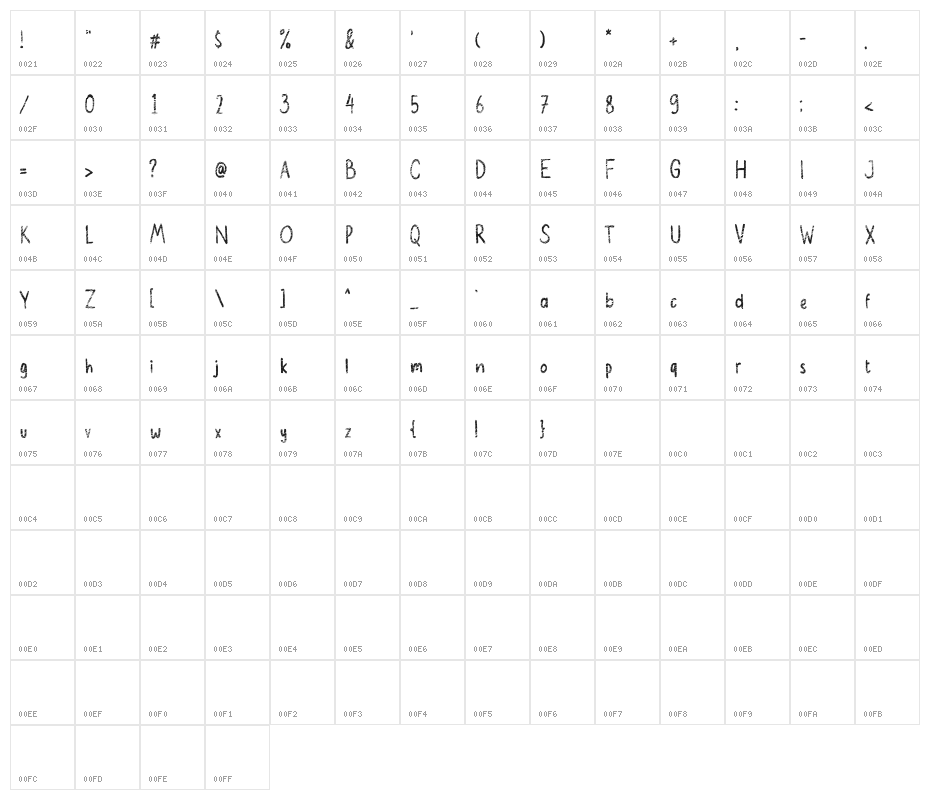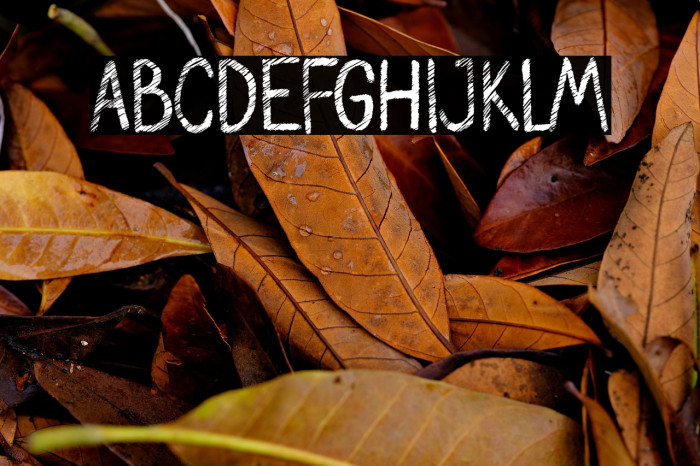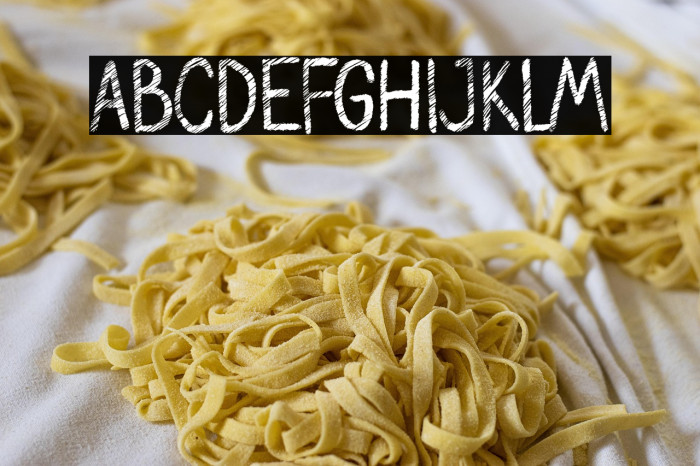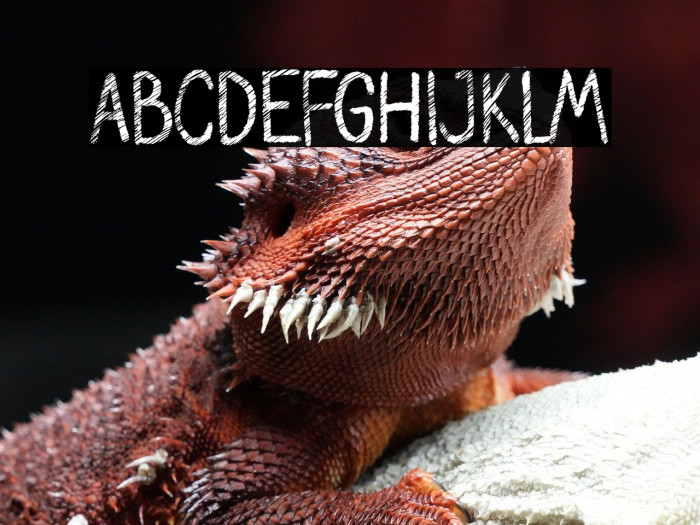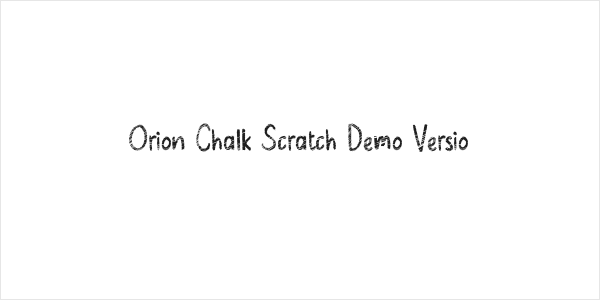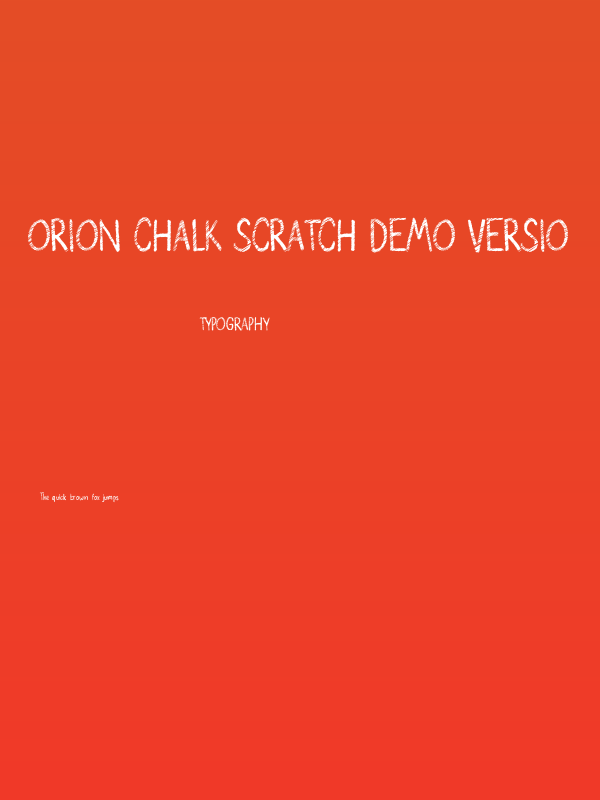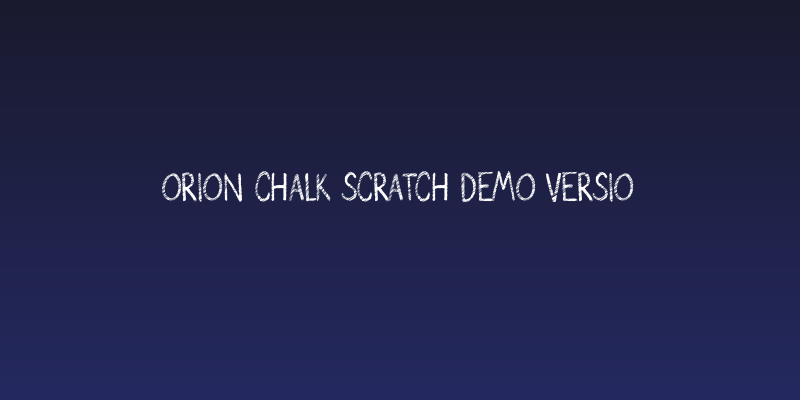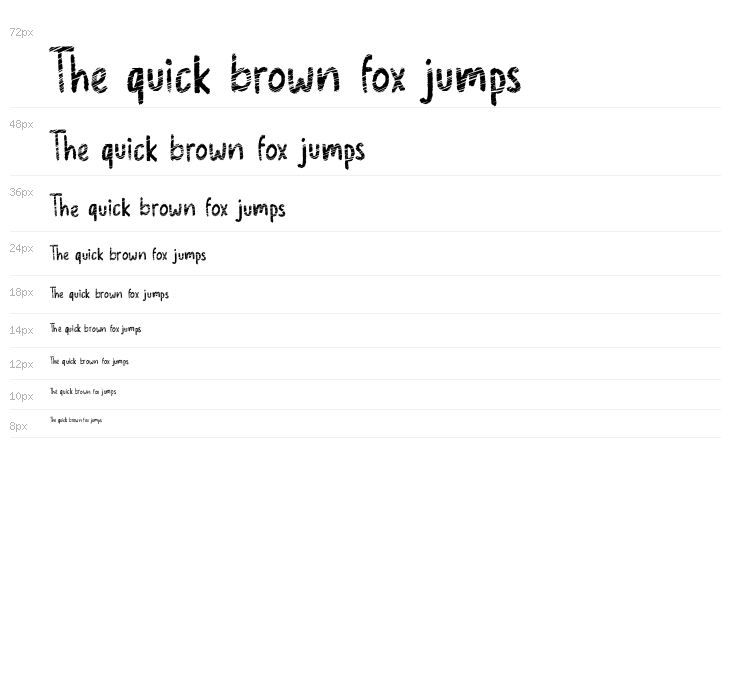
Orion Chalk Scratch Demo Versio Font
Orion Chalk Scratch Demo Versio Description
This font features a unique, hand-drawn style that mimics the appearance of chalk writing on a blackboard. The letters have a rough, textured look with uneven edges, giving them an informal and playful feel. The uppercase and lowercase characters maintain a consistent style, with the uppercase being slightly larger and bolder. Numbers and special characters are included, all sharing the same chalky texture. The overall appearance is casual and artistic, making it ideal for creative projects that require a touch of whimsy.